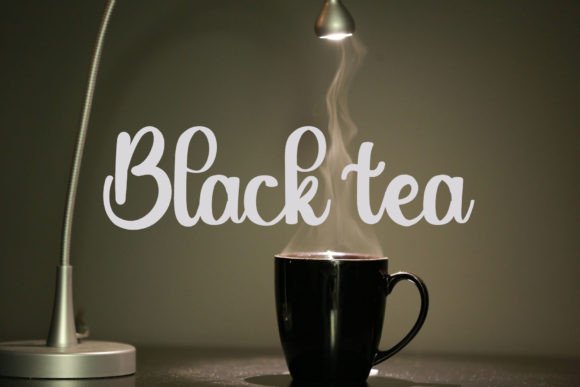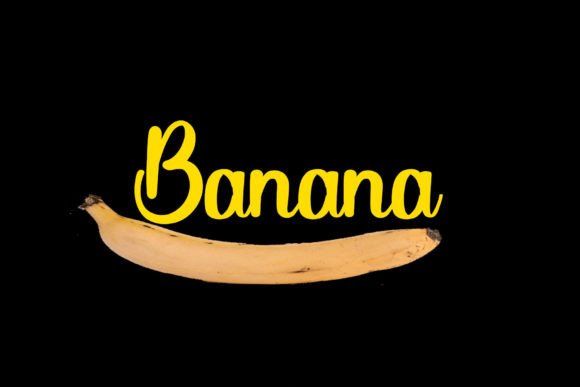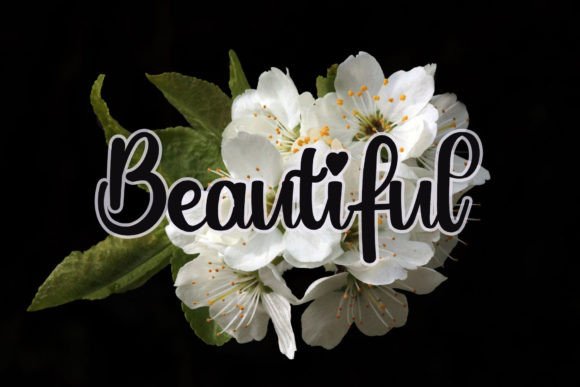
Baby Font: Elevate Your Designs with Elegance and Class
In the world of typography, fonts play a crucial role in conveying the tone and personality of a design. For designers and crafters looking to add a touch of sophistication and elegance to their projects, Baby Font is an excellent choice. This trendy handwritten font boasts a contemporary atmosphere and impeccable form, drawing inspiration from timeless classic calligraphy.
The Inspiration Behind Baby Font
Baby Font is a masterful blend of traditional calligraphy and modern design sensibilities. Its creators sought to craft a font that would evoke the feeling of classic elegance while still feeling fresh and contemporary. The result is a font that is both versatile and sophisticated, making it perfect for a wide range of design applications.
Key Features of Baby Font
- Trendy Handwritten Style: Baby Font features a handwritten style that is both modern and approachable. Its flowing lines and curves give it a personal touch that is sure to capture the attention of your audience.
- Contemporary Atmosphere: Unlike traditional calligraphy fonts that can sometimes feel dated, Baby Font has a distinctly contemporary feel. This makes it an excellent choice for designers looking to create modern, stylish designs.
- Impeccable Form: One of the standout features of Baby Font is its impeccable form. Each letter is carefully crafted to ensure that the font looks great in any context, from large headings to smaller body text.
- Elegance and Class: Perhaps the most significant advantage of Baby Font is its ability to add elegance and class to any design project. Whether you’re working on a luxury brand identity, a wedding invitation, or a high-end product packaging, this font is sure to elevate your design.
Uses of Baby Font
Baby Font’s versatility makes it suitable for a wide range of design projects. Here are some of the ways you can use this beautiful font:
- Branding and Logos: Create a lasting impression with a custom logo or brand identity that incorporates Baby Font. Its elegance and sophistication make it perfect for luxury brands, beauty products, and high-end services.
- Wedding and Event Invitations: Add a touch of romance and sophistication to your wedding or event invitations with Baby Font. Its beautiful, flowing lines are sure to set the tone for a memorable occasion.
- Packaging Design: Elevate your product packaging with Baby Font. Whether you’re designing labels for gourmet foods, cosmetics, or luxury goods, this font is sure to make your products stand out.
- Digital and Print Media: Use Baby Font in your digital and print media to add a touch of elegance and sophistication. From magazine headlines to website titles, this font is sure to make a lasting impression.
Tips for Using Baby Font Effectively
To get the most out of Baby Font, here are some tips to keep in mind:
- Pair it with Neutral Fonts: Baby Font’s elegance and sophistication make it a great choice for headlines and titles. Pair it with neutral fonts for body text to create a balanced and harmonious design.
- Experiment with Colors: Don’t be afraid to experiment with different colors and textures to find the perfect combination for your design. Baby Font looks great in a variety of colors, from classic black and white to bold and bright hues.
- Use it Sparingly: While Baby Font is beautiful, it’s best used sparingly. Use it for key elements like headlines and titles, and opt for simpler fonts for body text and other design elements.
Baby Font is a beautiful, trendy handwritten font that is sure to elevate your design projects with its elegance and class. Inspired by timeless classic calligraphy, this font boasts a contemporary atmosphere and impeccable form that makes it perfect for a wide range of design applications. Whether you’re a designer or crafter looking to add a touch of sophistication to your work, Baby Font is an excellent choice.